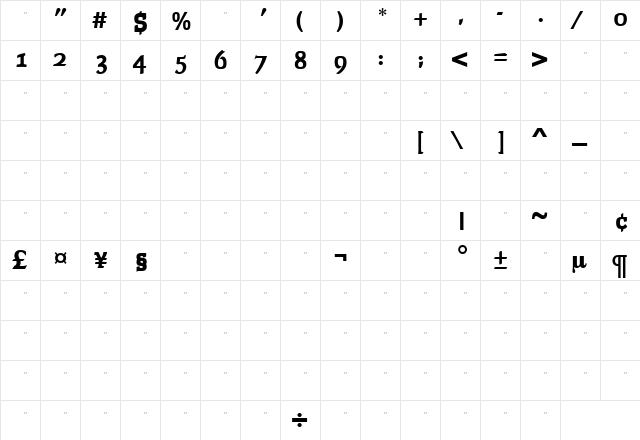
FaustExtraBoldOldStyleFigsTab Roman Font Preview
FaustExtraBoldOldStyleFigsTab Roman
Design Context for FaustExtraBoldOldStyleFigsTab Typeface
FaustExtraBoldOldStyleFigsTab brings classic typographic sensibility to the table — its serifs and measured letterforms reflect centuries of print heritage. The heavy weight commands attention and anchors typographic hierarchies.
Pro Tip: Set FaustExtraBoldOldStyleFigsTab with slightly loose tracking in headlines to let each letterform's detail read clearly at display sizes.